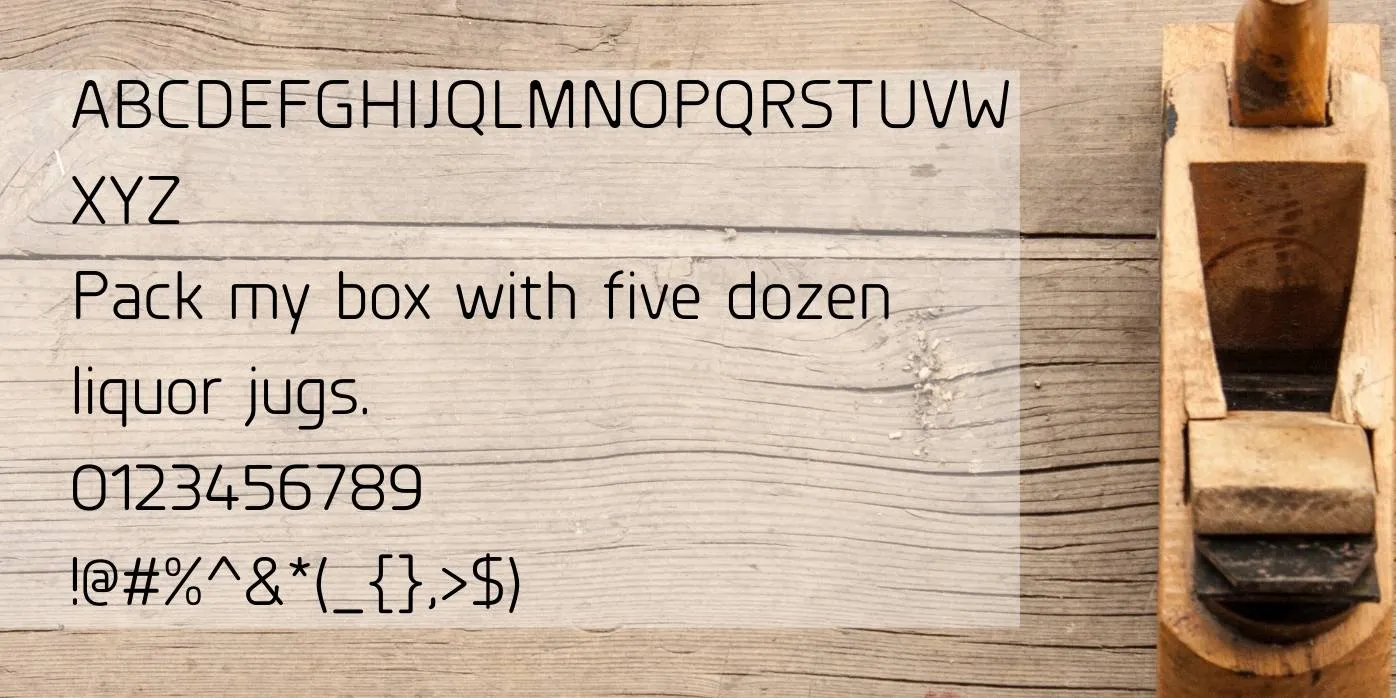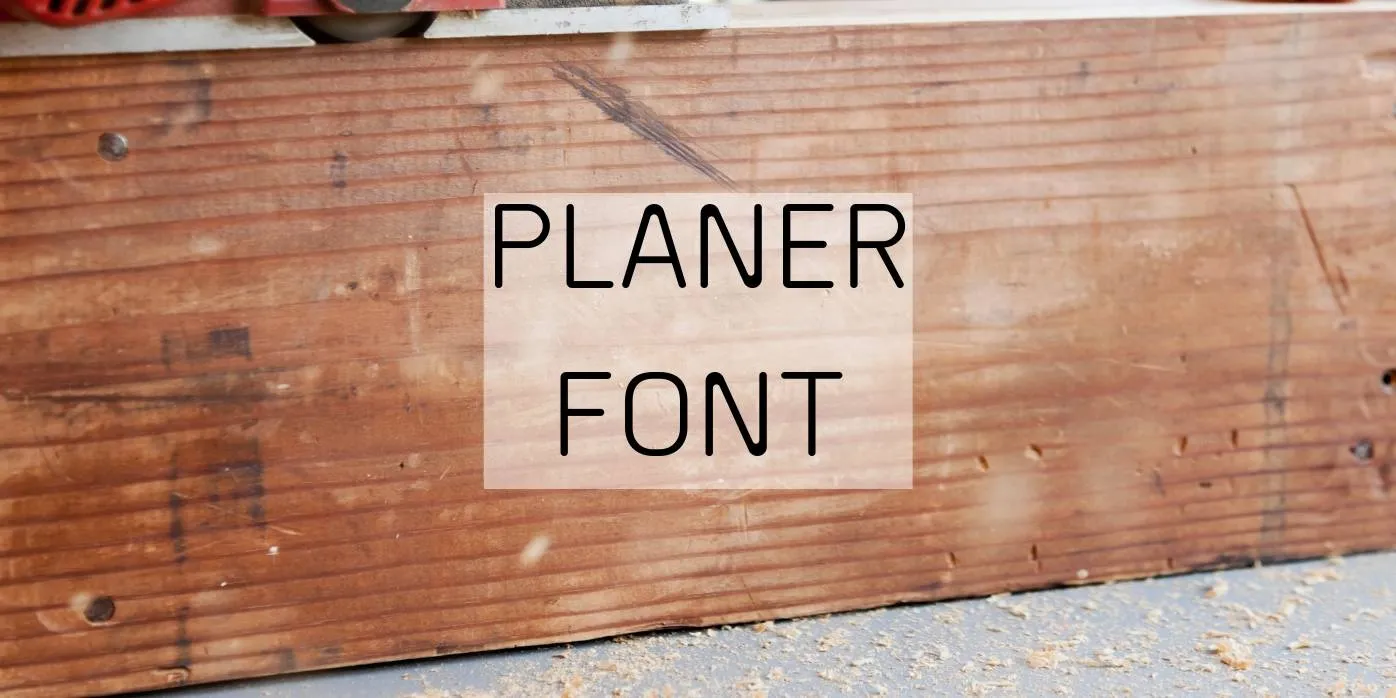
Planer Font
Planer Font is a modern round corners typeface uniting humanist elements with a strapping geometric grid. The result of this typeface can produce obvious visuals at a large scale and clean line visibility in the textual content. The designer of this typical font is The Northern Block. The font belongs to a Modern Square Typeface family.
It has TTF features and it also has 400 hundred characters per style. This typeface is available only in Regular style and has the ability to support many languages. The font family includes Uppercase letters, Lowercase letters, Numbers & Numerals, symbols, Best Alternates including Uppercase and lowercase, and some other characters as well. This geometrical typeface is fulfilled with all the user’s requirements.